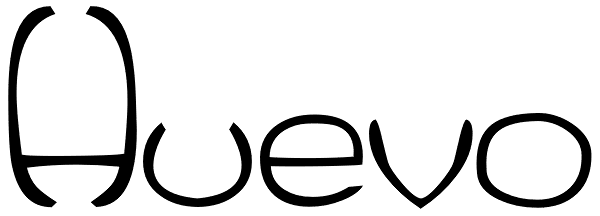
Huevo
Versatile egg-shaped Huevo, like all Burghal Design fonts, includes upper and lower case letters, as well as numbers, symbols, punctuation, and accented foreign characters. Huevo is the head of the household known as Los Huevos. Tequila-guzzling...
Huevo